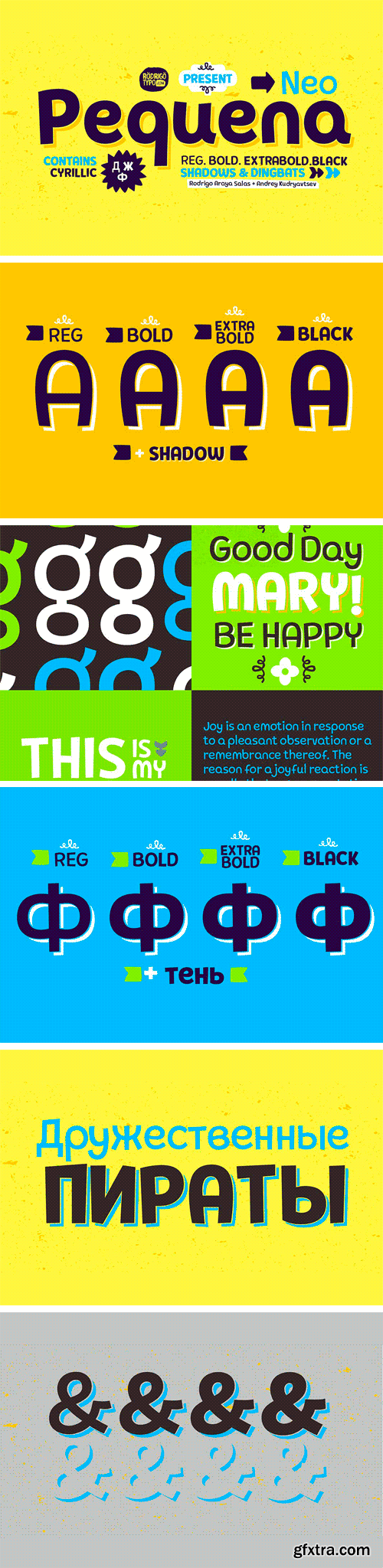
Author: Rodrigo Araya Salas + Andrey Kudryavtsev Year: 2017 Concept: This typography is the complete family of "Pequena" from "regular to Black" Contains the Cyrillic alphabet, shadows and dingbats, especially for children's or comic titles.